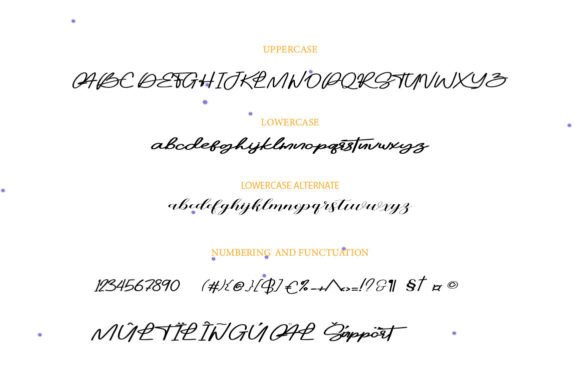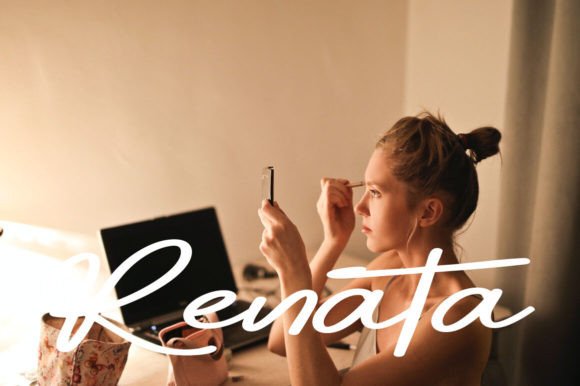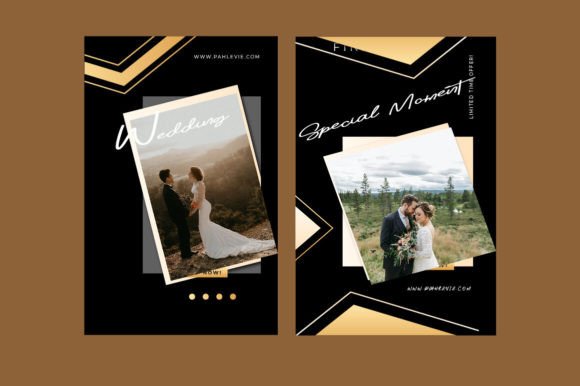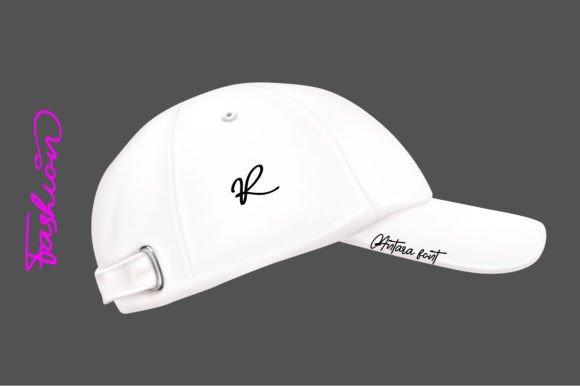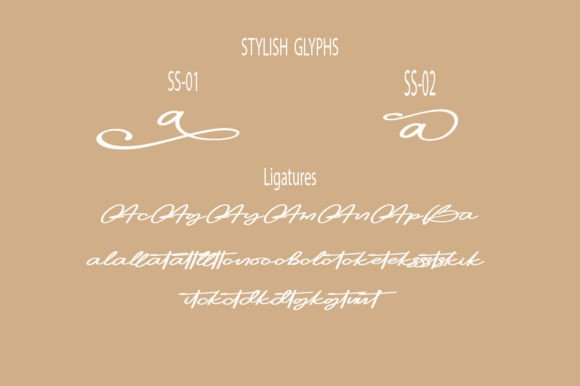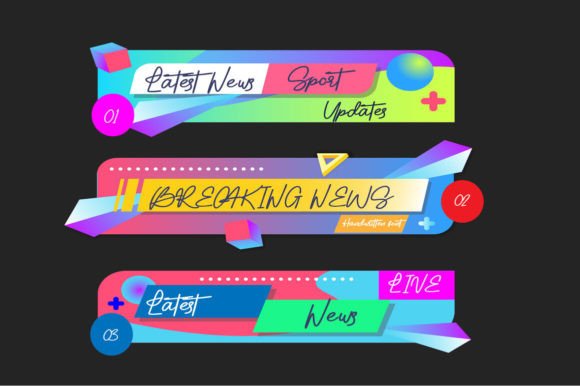
Introducing Antara Font: The Perfect Handwritten Font for Your Creative Projects
Are you tired of using the same old fonts for your design projects? Look no further! We’re excited to introduce Antara Font, a beautiful handwritten font that’s perfect for creating unique and eye-catching designs. With its natural and modern look, Antara Font is ideal for a wide range of projects, from logos and branding to social media posts and advertisements.
What Makes Antara Font Special?
Antara Font is a carefully crafted handwritten font that exudes a sense of elegance and sophistication. Its natural and fluid strokes give it a personal touch, making it perfect for designs that require a human touch. The font is highly legible, making it suitable for both digital and print designs.
One of the standout features of Antara Font is its versatility. It’s a font that can be used for a wide range of projects, including:
- Logos & branding: Create a unique and memorable brand identity with Antara Font.
- Invitations: Design beautiful and elegant invitations for special occasions.
- Wedding designs: Add a touch of romance and sophistication to your wedding designs.
- Social media posts: Create eye-catching social media posts that stand out from the crowd.
- Advertisements: Use Antara Font to create compelling and effective advertisements.
- Product design: Design stunning product labels and packaging with Antara Font.
- Covers: Create beautiful book covers, magazine covers, and more.
- Labels: Design custom labels for products, gifts, and more.
- Photography: Add a touch of elegance to your photography with Antara Font.
- Web tile: Use Antara Font to create stunning website headers and titles.
- Poster: Design eye-catching posters for events, promotions, and more.
- Cover: Create stunning cover art for movies, albums, and more.
- Movie title: Use Antara Font to create memorable movie titles and credits.
- Special events: Design custom event branding, tickets, and more with Antara Font.
Why Choose Antara Font?
There are many reasons why Antara Font stands out from other fonts. Here are just a few:
- Unique and distinctive: Antara Font has a unique and distinctive look that sets it apart from other fonts.
- Highly legible: The font is highly legible, making it suitable for both digital and print designs.
- Versatile: Antara Font can be used for a wide range of projects, from logos and branding to social media posts and advertisements.
- Elegant and sophisticated: The font exudes a sense of elegance and sophistication, making it perfect for designs that require a high-end look.
Antara Font is a beautiful and versatile handwritten font that’s perfect for designers and crafters. With its natural and modern look, it’s ideal for a wide range of projects, from logos and branding to social media posts and advertisements. Whether you’re looking to create a unique and memorable brand identity or simply want to add a touch of elegance to your designs, Antara Font is the perfect choice.